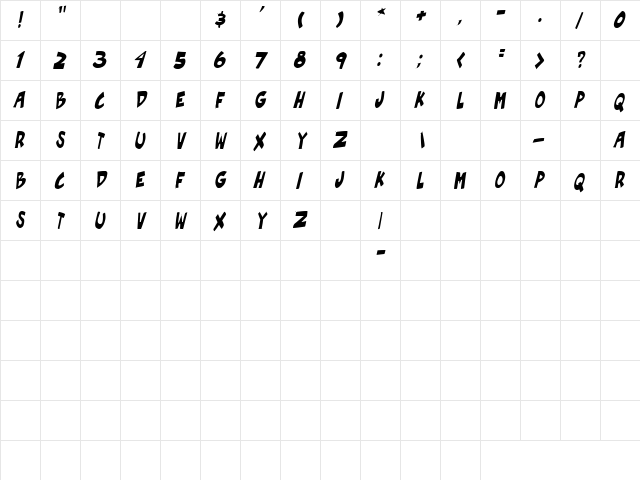
Roof runners active Italic
| Designer | Andeh Pinkard |
Design Context for Roof runners active Typeface
Roof runners active is a composed and adaptable typeface that performs quietly and consistently across a wide range of design contexts. The slanted form adds forward momentum and visual energy.
Pro Tip: Try Roof runners active for annotation and caption copy alongside an upright companion — the contrast in angle creates a dynamic but ordered typographic system.